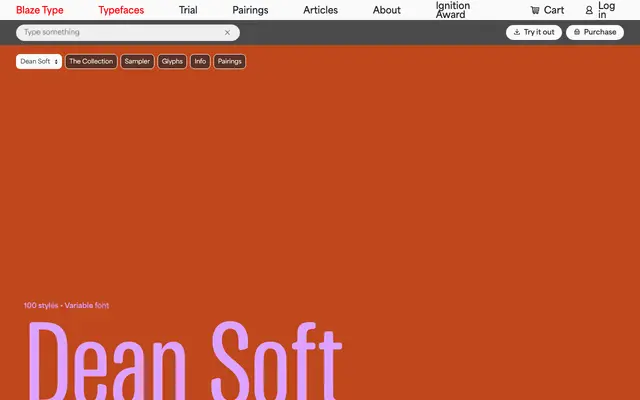
Dean Soft
A 100-style variable sans-serif spanning five widths from Compressed to Wide, each in ten weights with matching italics.
Available as variable fonts across five named width families, Dean Soft covers an unusually broad typographic range in a single release. Each width runs from Thin to Black with a full set of italics, giving 20 styles per family and 100 in total. The rounded, soft character suits editorial and branding contexts where a geometric feel is wanted without sharp austerity.
A soft-edged sans-serif with rounded terminals suggesting a humanist influence; the breadth of width variants from Compressed to Wide places it in the humanist sans tradition with display range.